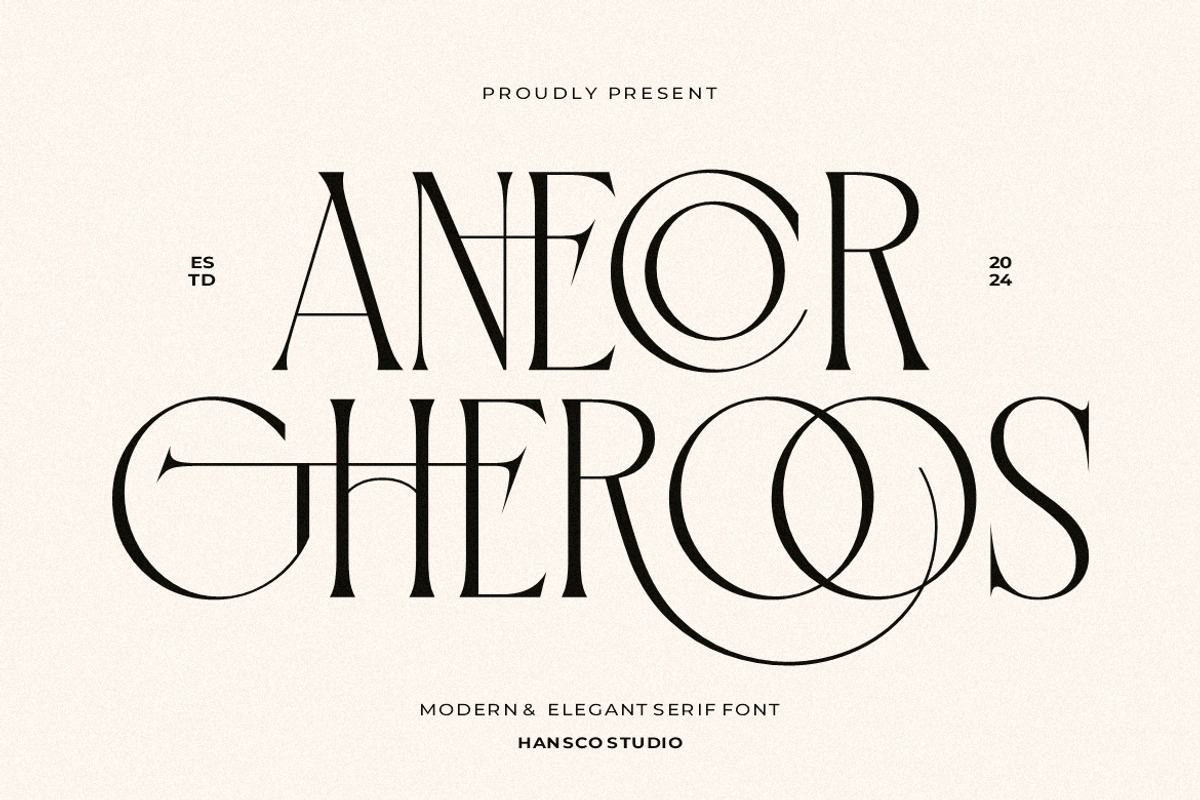
Anecor Gheroos Font Free Download
Anecor Gheroos Font Free Download is a bold and distinctive typeface designed with sharp edges and strong curves. Its unique style makes it perfect for creating standout headlines, logos, posters, and branding projects that need a touch of modern sophistication and edge. The font has a strong, confident presence that works well in both digital and print designs.
Using the Anecor Gheroos Font Free Download adds strength and character to your designs. Whether you're creating a dynamic logo, impactful advertising material, or unique promotional content, this font will help your project stand out with a stylish, contemporary flair.